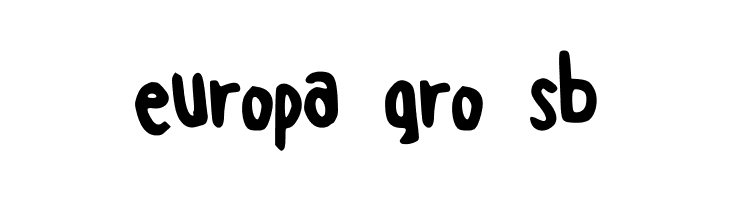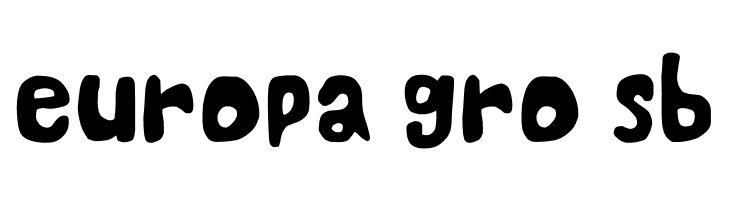
( Fonts by Intellecta Design )
A bold, dynamic script font with fluid, cursive letterforms and a sophisticated style.
An elegant and decorative font with intricate swirls and loops.
( Fonts by Manuel Ramos )
A sleek, modern font with rounded edges and a minimalist aesthetic.
A playful, hand-drawn font with rounded edges and a whimsical style.
( Fonts by MatNowRock )
A playful, handwritten font with bold, varied strokes and a casual, dynamic style.
A playful, rounded sans-serif font with smooth curves and a friendly appearance.